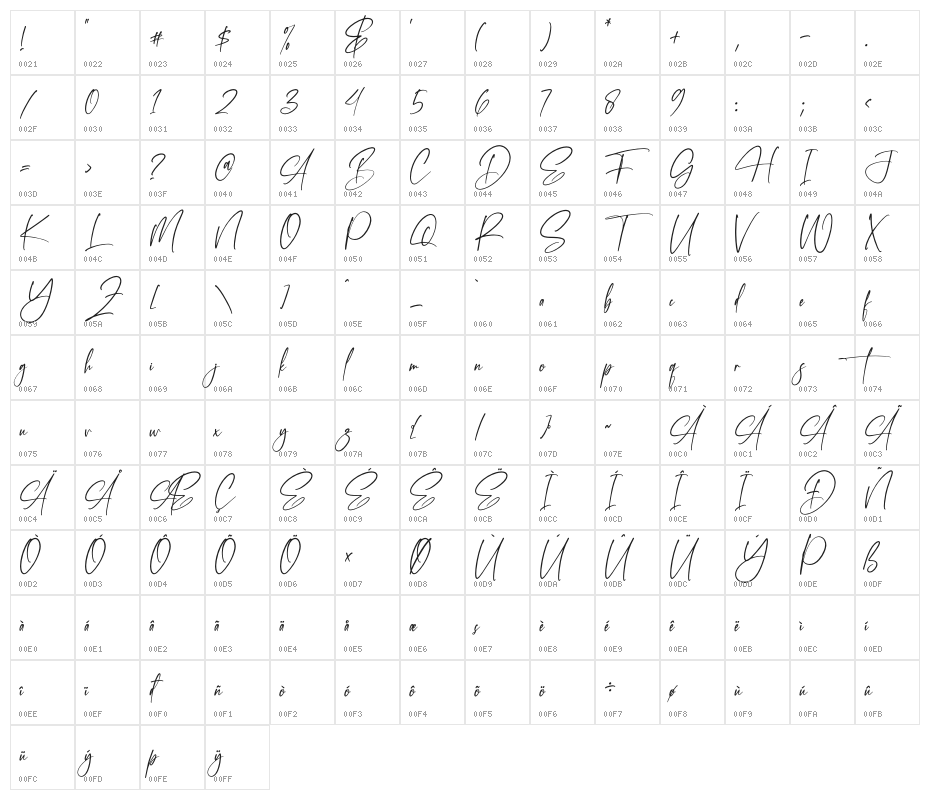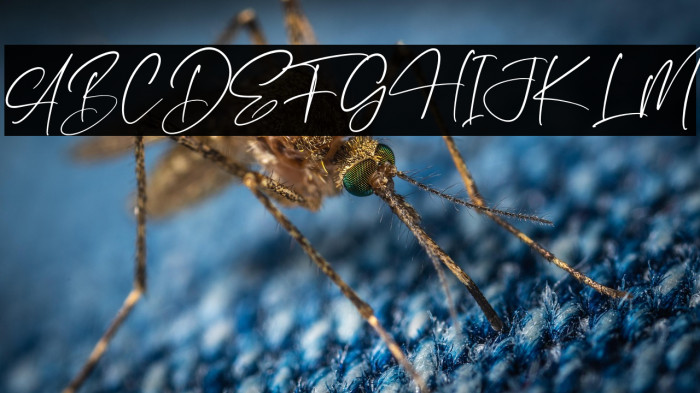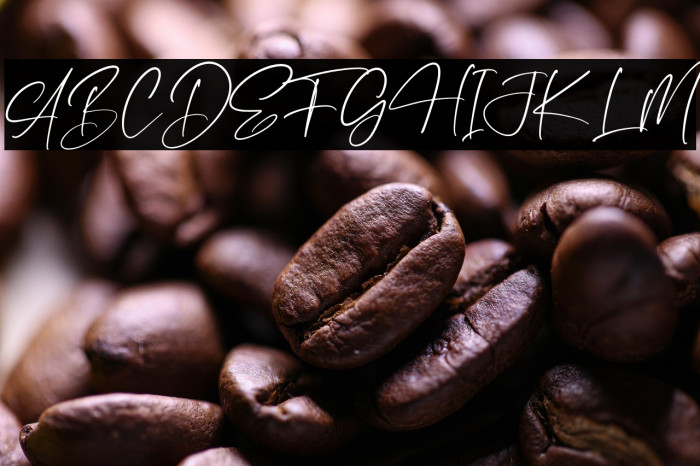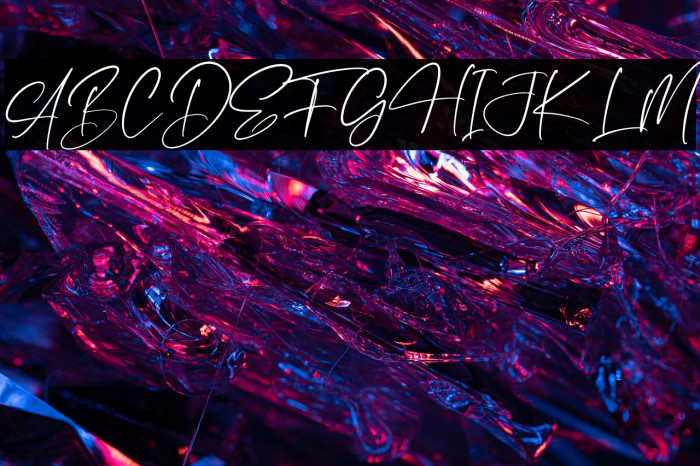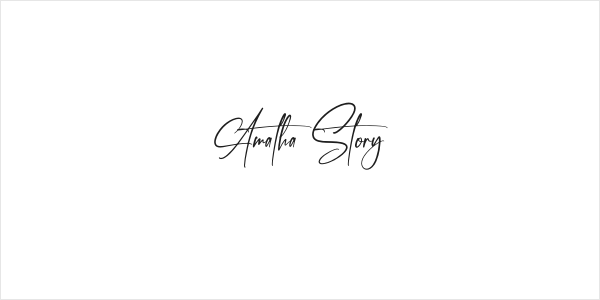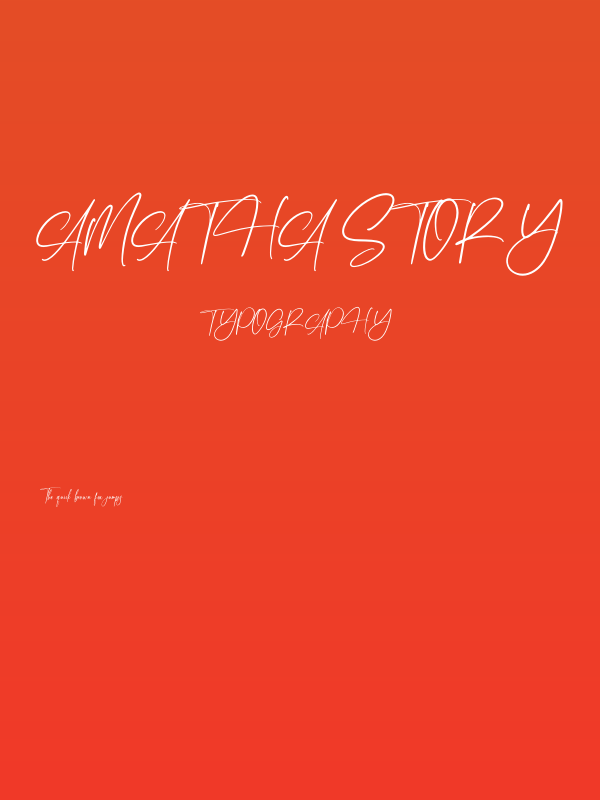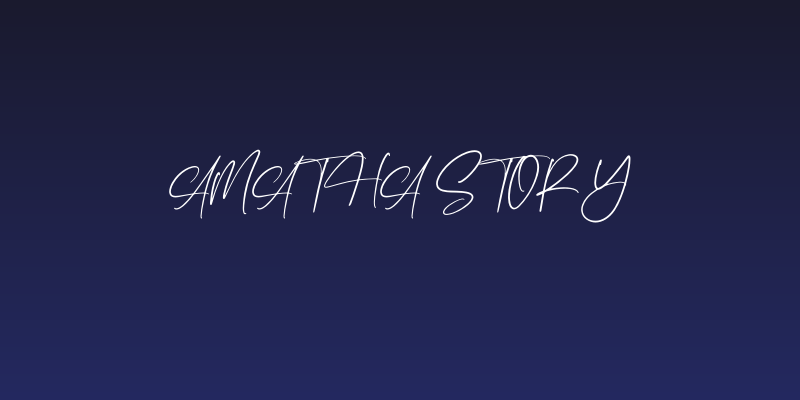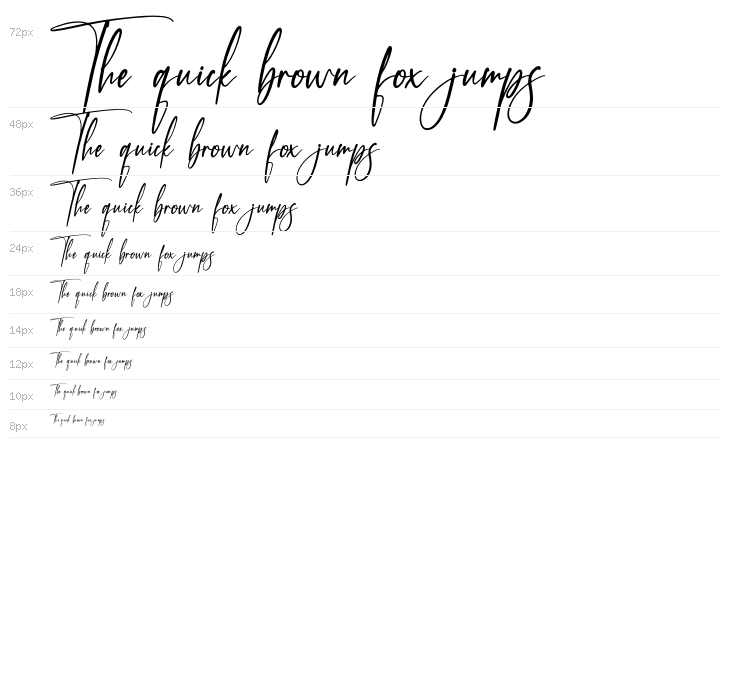
Amatha Story Font
Amatha Story Description
A flowing, elegant script font with a handwritten style, featuring smooth curves and a natural, organic feel.
| Use Case | Logos, Invitations, Headlines |
| Proposed Projects | Wedding invitations, greeting cards, personal branding. |